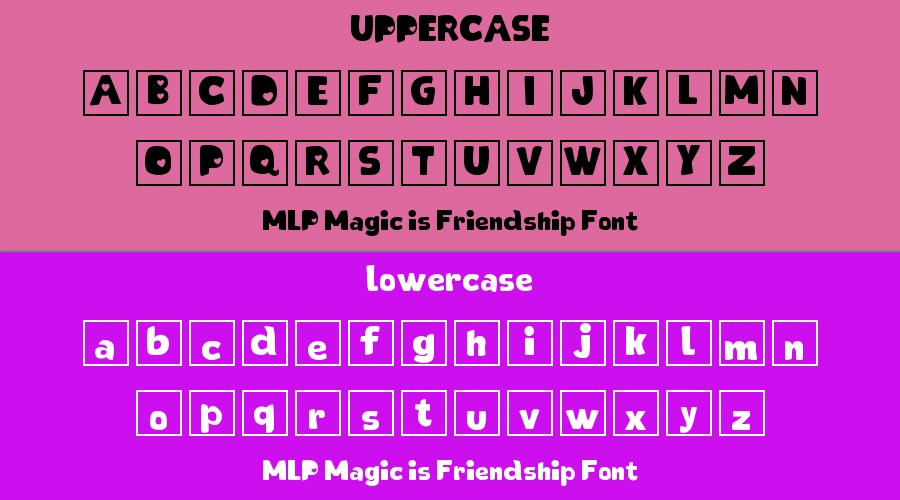
About MLP Magic is Friendship Font
MLP Magic is Friendship Font embodies typographic excellence through its masterful combination of monoline strokes and consistency. Created for financial statements, this typeface delivers exceptional clarity and design innovation across all applications. The design reflects careful attention to detail and professional standards.
Advanced capabilities include distinctive tapered strokes and versatile word-end alternates, giving designers creative control. When used in event graphics, MLP Magic is Friendship Font exhibits remarkable reproduction fidelity. The harmonious balance between descender depth and artistic merit sets this typeface apart.